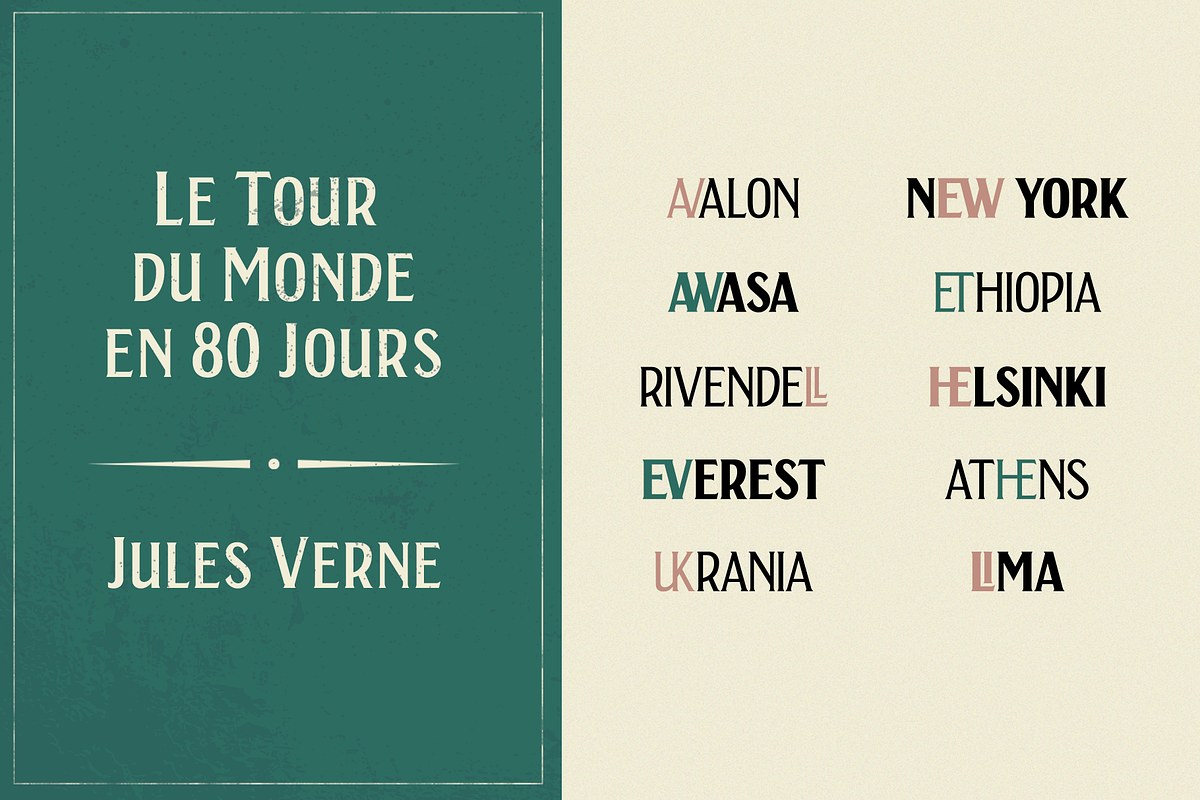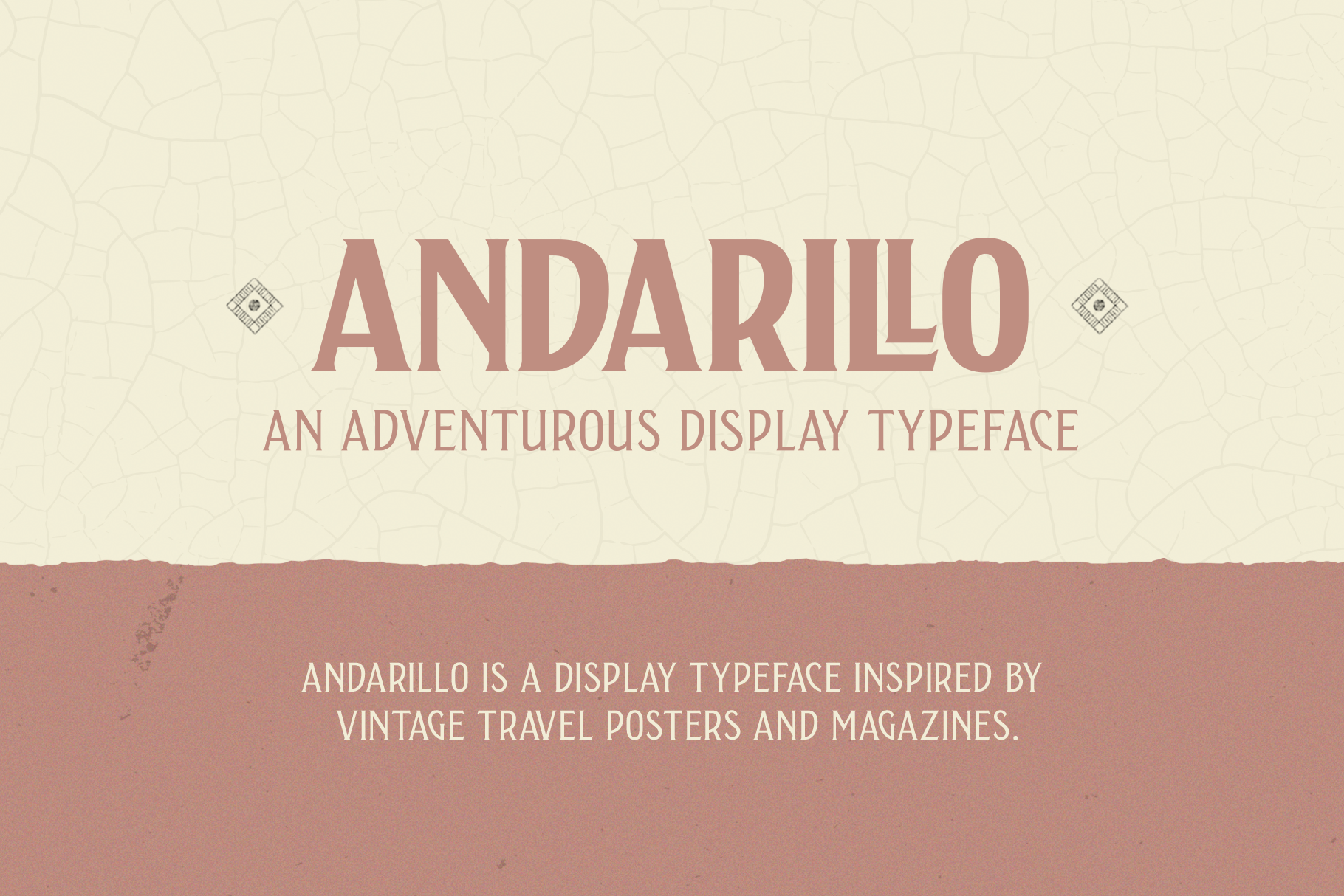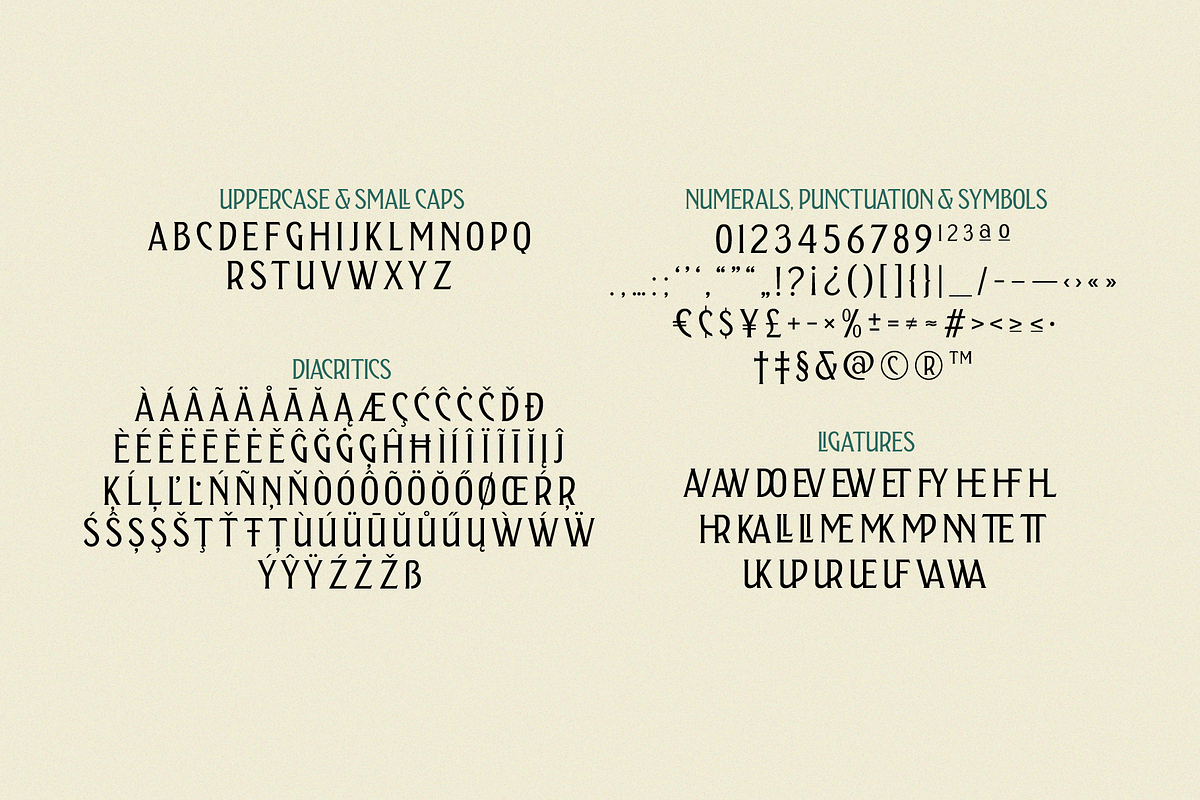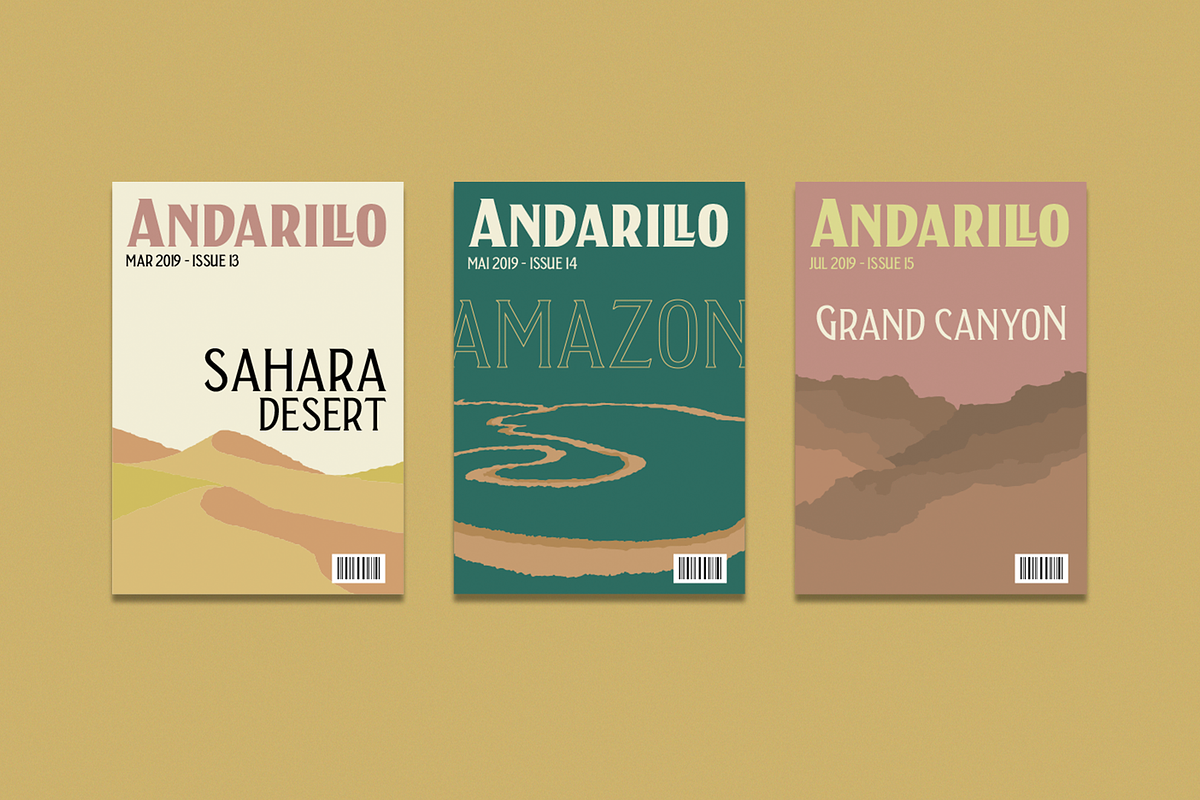
Andarillo - Display Font
Andarillo is a display typeface inspired by vintage travel posters and magazines. The complete glyph set contains uppercase, small caps, numerals, punctuation, ligatures and multilingual support.
Andarillo is perfect for logotypes, magazines, titles, posters, advertising and branding communication.